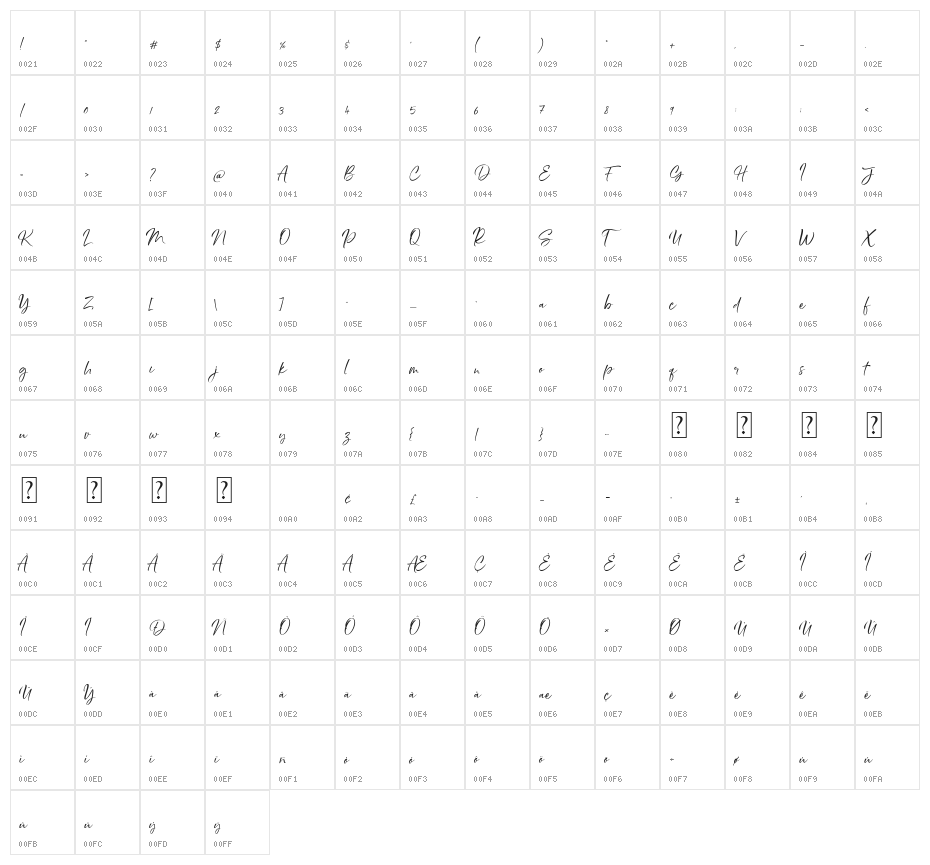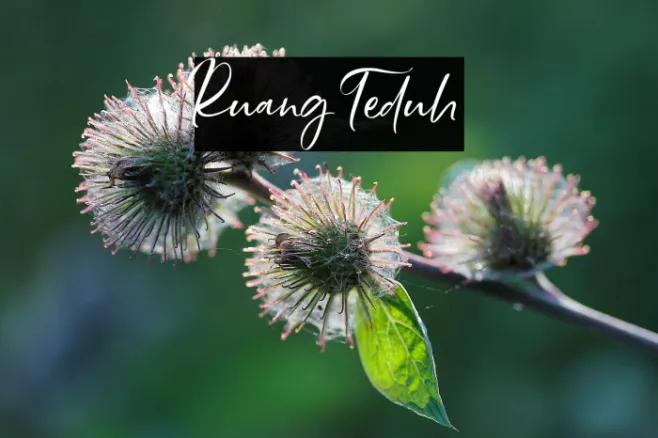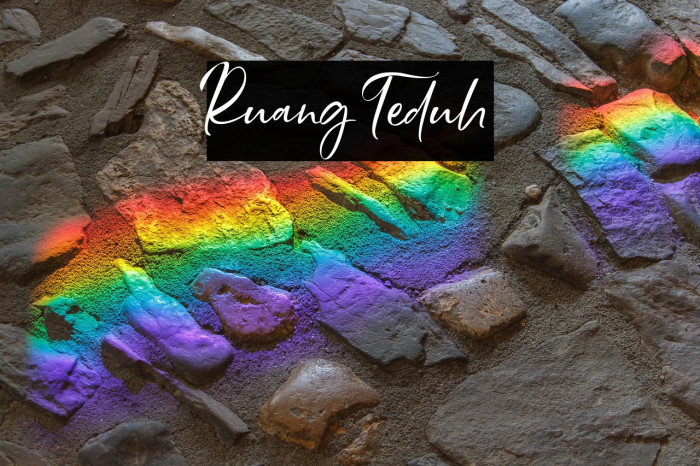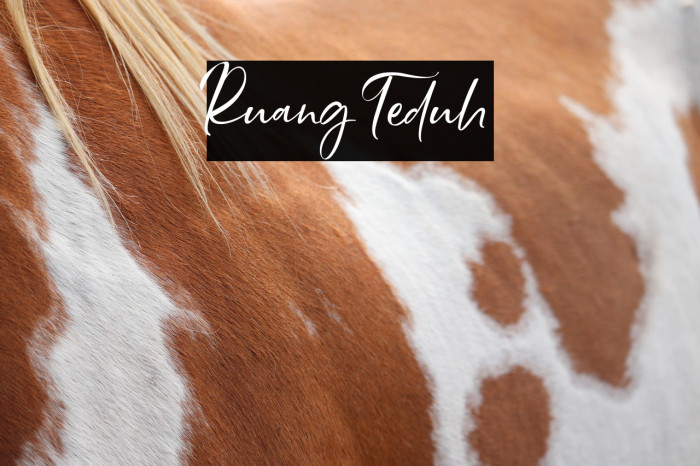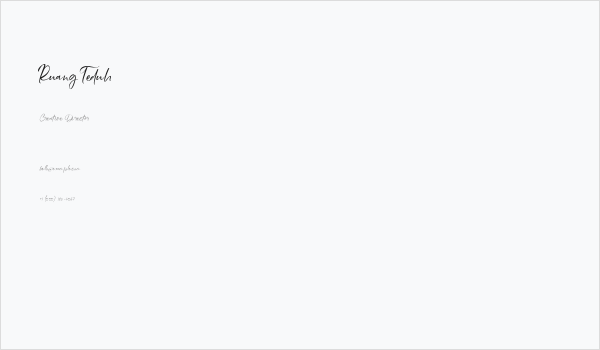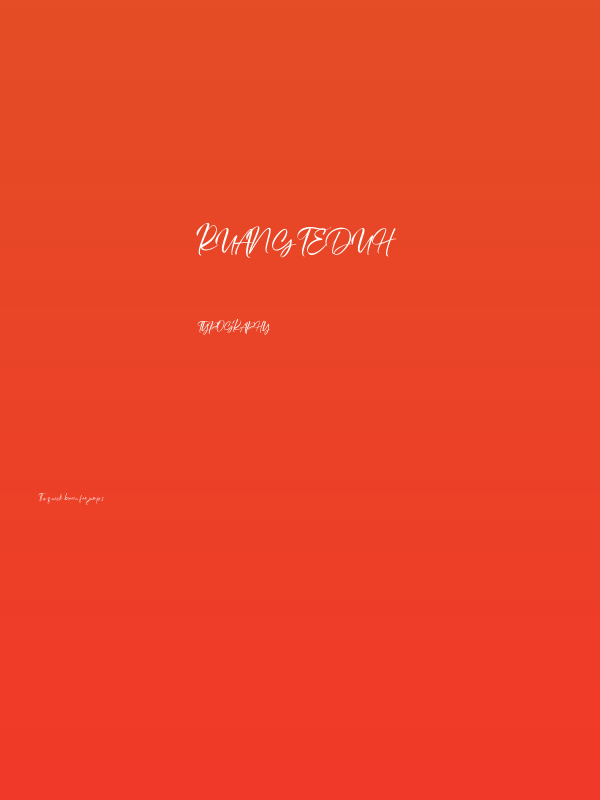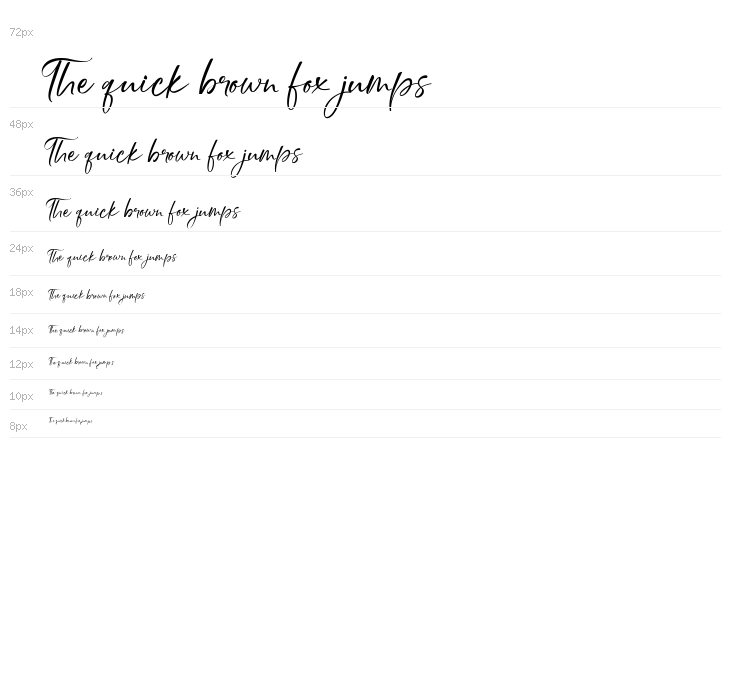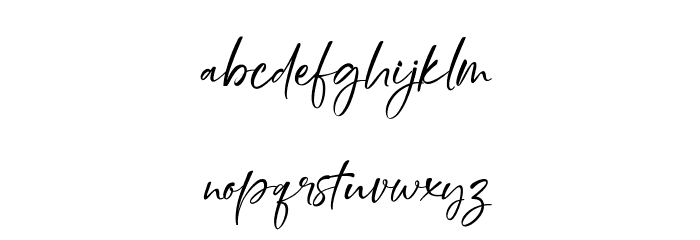
Ruang Teduh Font
Ruang Teduh Description
This font features an elegant and flowing script style, characterized by its smooth, cursive strokes and a handwritten appearance. The uppercase letters are bold and sweeping, with a distinctive flair that adds a touch of sophistication. The lowercase letters maintain a consistent flow, enhancing readability while preserving the font's artistic nature. Numbers and special characters are crafted with the same attention to detail, ensuring a cohesive look across all text elements. This font is ideal for projects that require a personal and stylish touch.